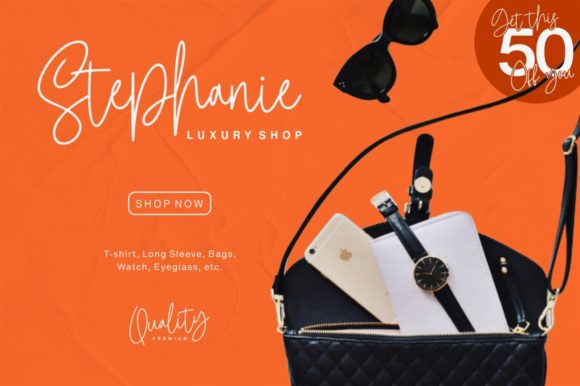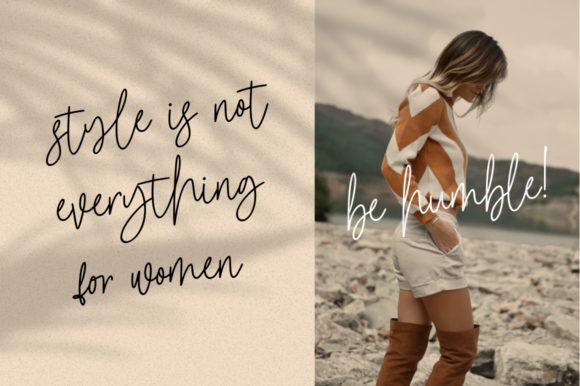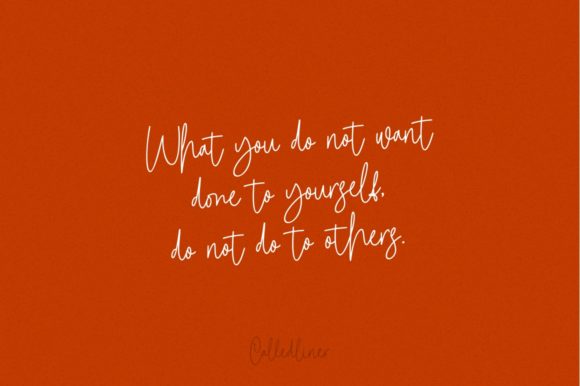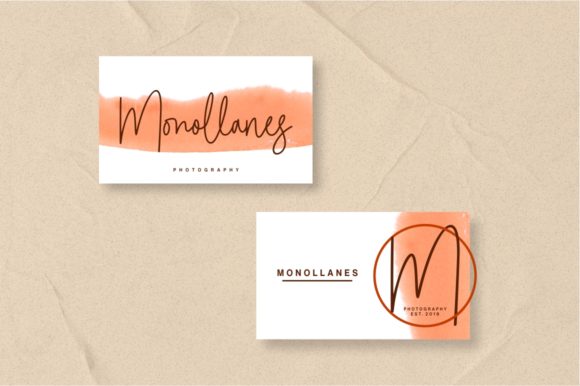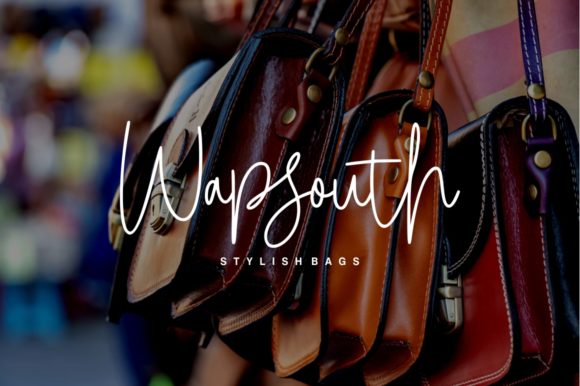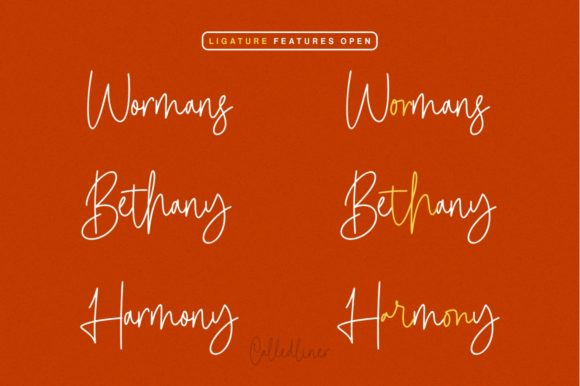
The Sweet Spot: Discovering Calledliner Font
I’ll never forget the moment I stumbled upon Calledliner Font while working on a branding project for a small bakery. I was on a tight deadline, and my client was particular about the font – it had to be sweet, simple, and authentic. As I scrolled through my font library, Calledliner caught my eye, and I knew I had found the one. In this article, I’ll share my experience with Calledliner, its features, and how to make the most of it in your designs.
- ✨ Sweet and Simple: Calledliner has a charming, hand-written feel that’s perfect for branding, packaging, and social media graphics.
- ✅ Authentic Vibe: The font exudes a sense of warmth and approachability, making it ideal for crafty, homemade, or artisanal projects.
- 💡 Legibility: Calledliner is clear and easy to read, even at smaller font sizes.
While Calledliner is an excellent font, there are a few things to keep in mind:
- 🤔 Limited Contrast: Calledliner has a relatively low contrast between thick and thin strokes, which may not be suitable for designs that require dramatic visual hierarchy.
- ⚠️ Not Ideal for Body Text: Due to its script nature, Calledliner is best used for headings, titles, or short paragraphs. For longer texts, a serif or sans-serif font might be more suitable.
- Experiment with Calledliner’s OpenType features, such as stylistic alternates and glyphs, to add visual interest to your design.
- In the Character panel, explore Calledliner’s OpenType features, such as ligatures, stylistic sets, and swashes.
Calledliner was designed with the intention of capturing the essence of handmade, artisanal craftsmanship. The font’s creator drew inspiration from traditional lettering techniques, combined with a modern twist to make it fresh and versatile. The result is a font that feels both nostalgic and contemporary.
Q: What type of projects is Calledliner best suited for?
A: Calledliner is perfect for branding, packaging, social media graphics, and any project that requires a sweet, simple, and authentic touch.
Q: Does Calledliner support OpenType features?
A: Yes, Calledliner supports OpenType features, including stylistic alternates, glyphs, and ligatures. Experiment with these features to add visual interest to your designs.